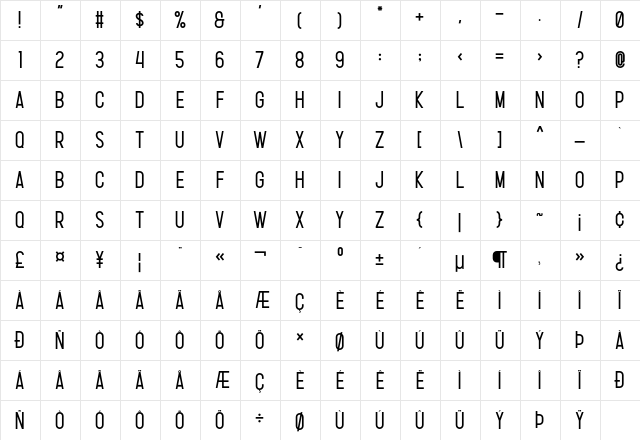
Highly Regular
| Foundry | Garisman Studio |
| Designer | Risman Ginarwan |
Design Context for Highly Typeface
Highly takes a measured approach to typography — its balanced proportions and neutral character make it a reliable workhorse for both digital and print work.